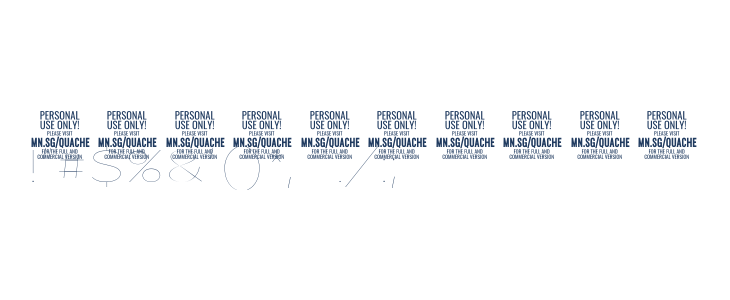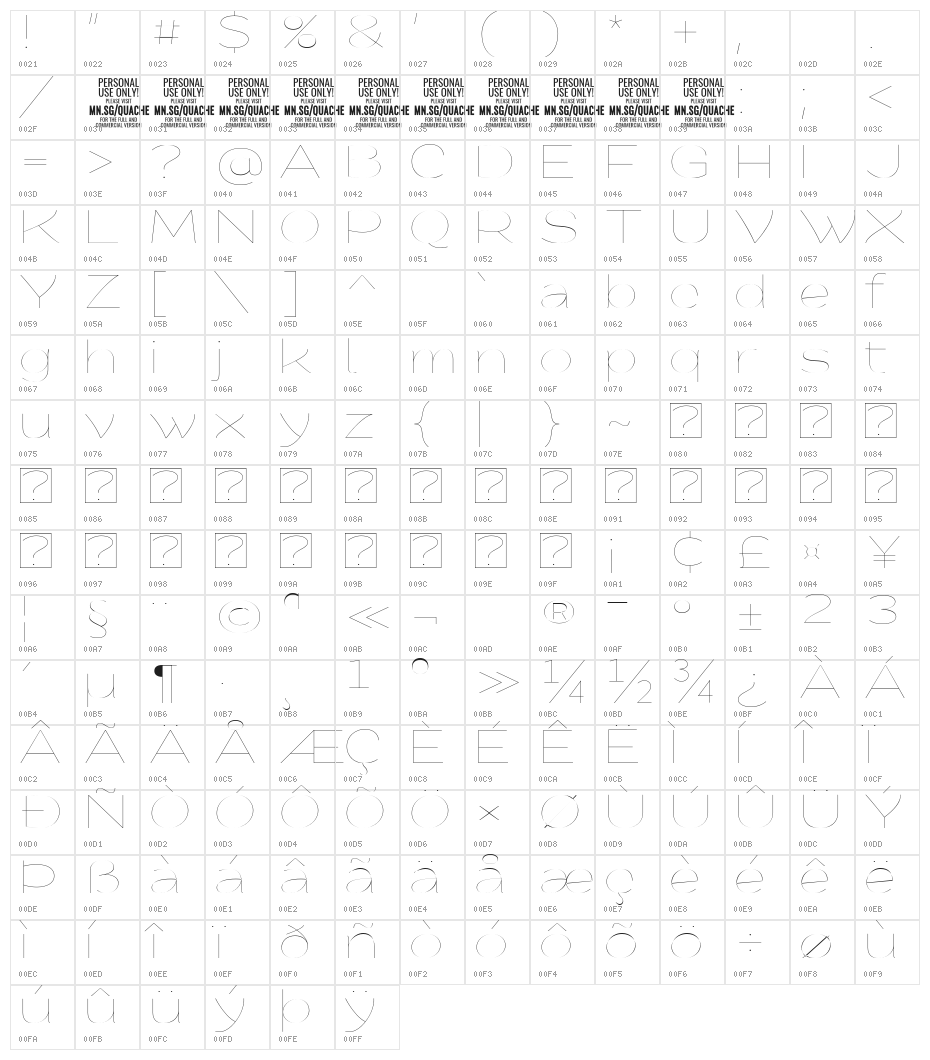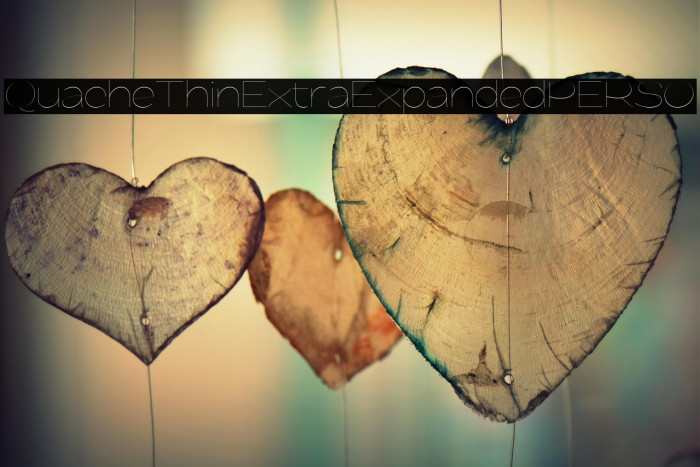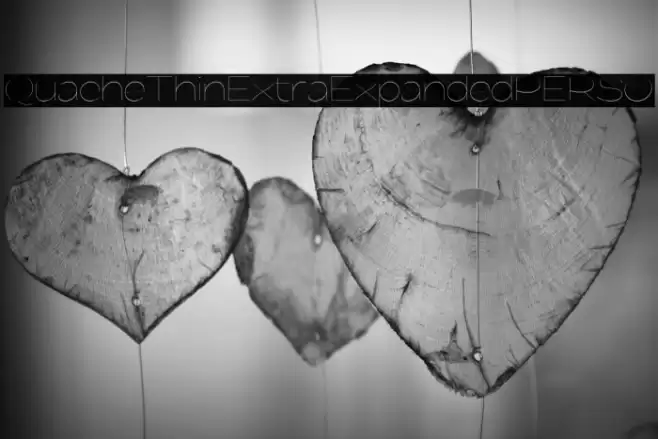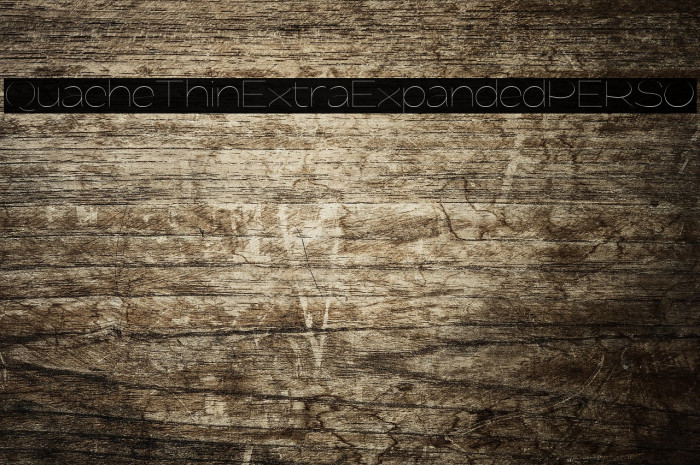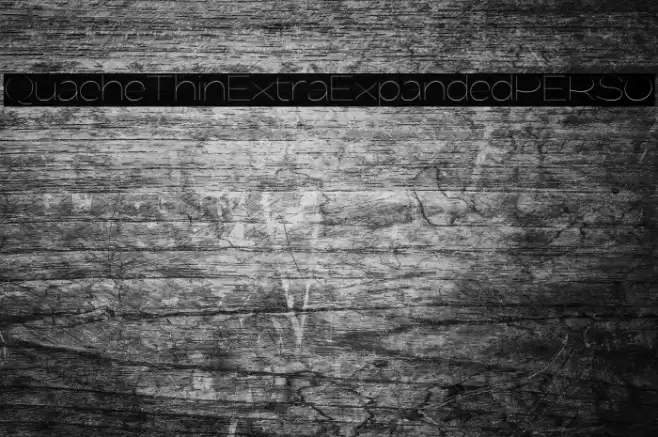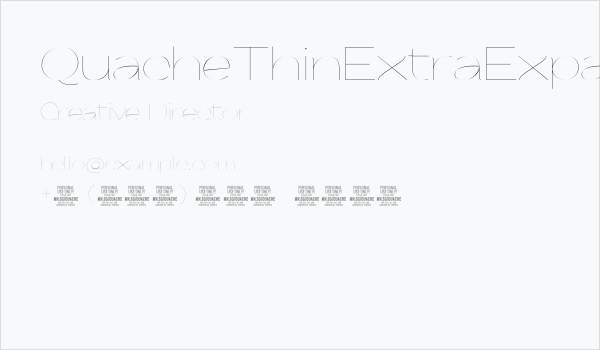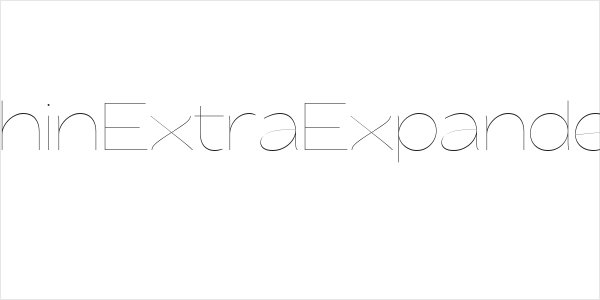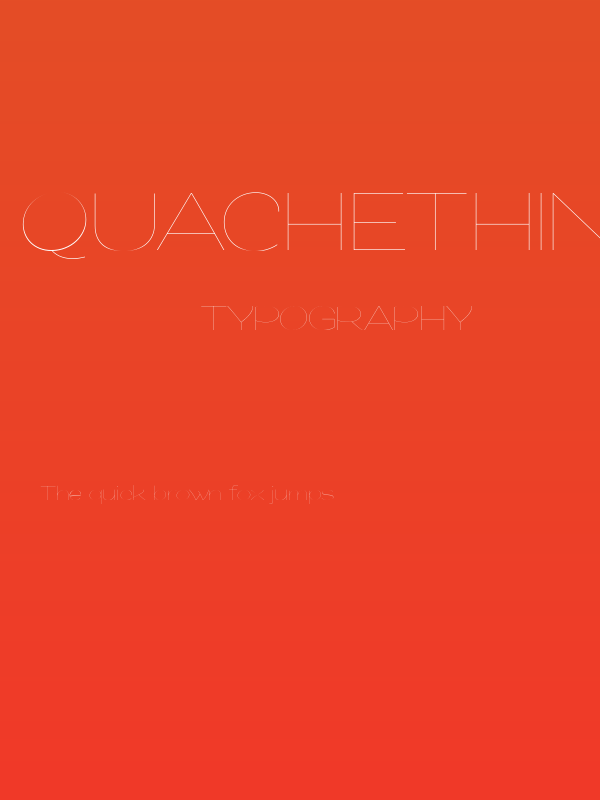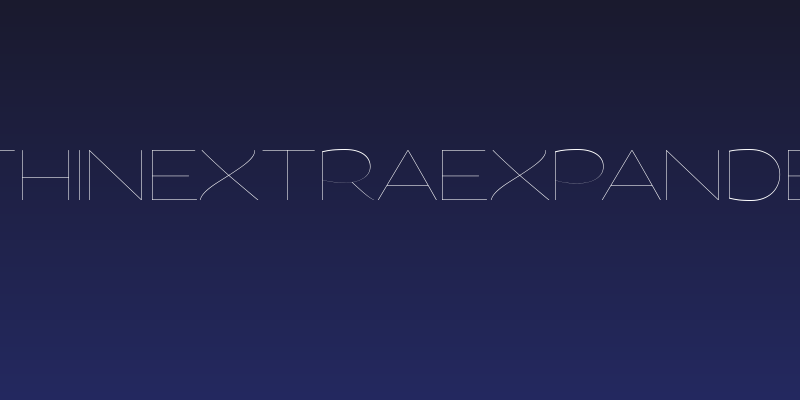
QuacheThinExtraExpandedPERSO Font
QuacheThinExtraExpandedPERSO Description
This font features a sleek, ultra-thin design with a modern aesthetic. Its characters are extra expanded, giving it a spacious and airy feel. The strokes are consistent in their thinness, providing a uniform and elegant appearance. The font maintains a geometric structure, with clean lines and minimalistic curves, making it ideal for contemporary design projects. Its uppercase and lowercase letters are well-balanced, and the numerals and special characters are crafted with the same attention to detail. This font's refined style makes it suitable for high-end branding and sophisticated editorial layouts.
| Use Case | Logos, Headlines, Editorial design |
| Proposed Projects | Ideal for luxury branding, modern editorial design, minimalist posters, and high-end product packaging. |